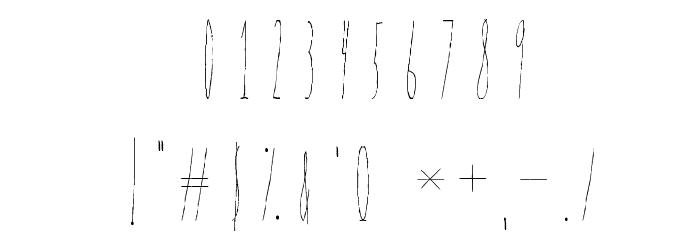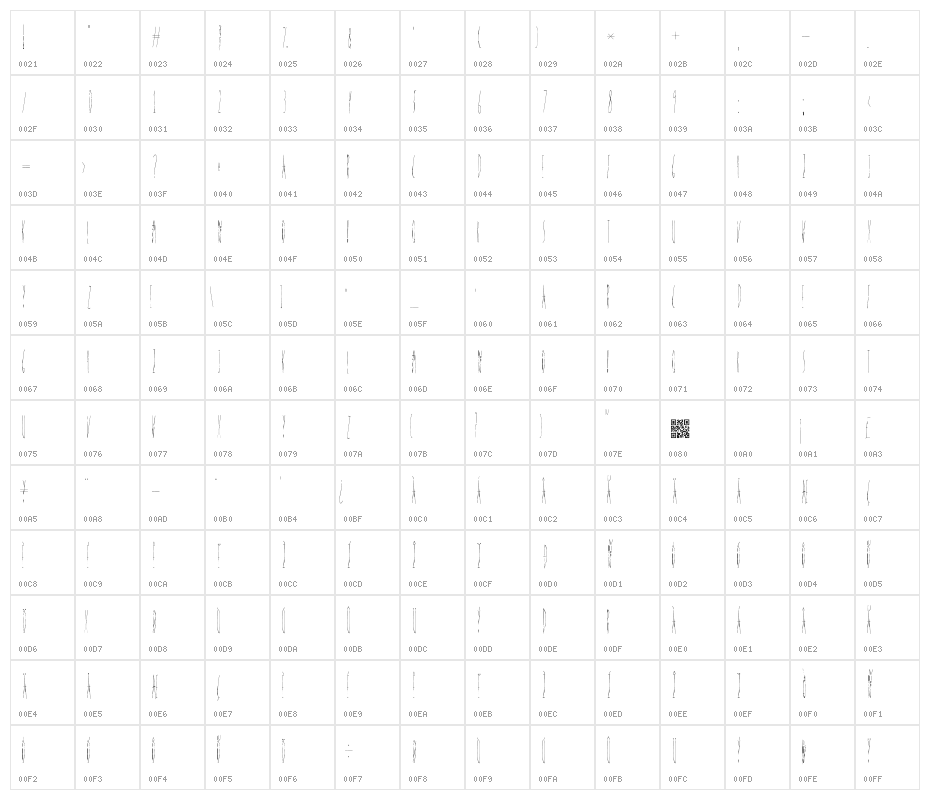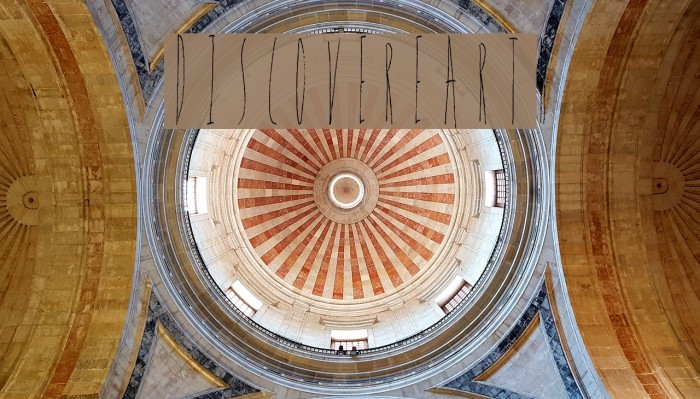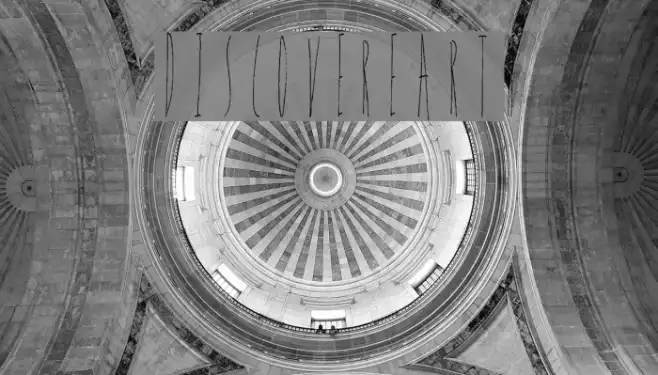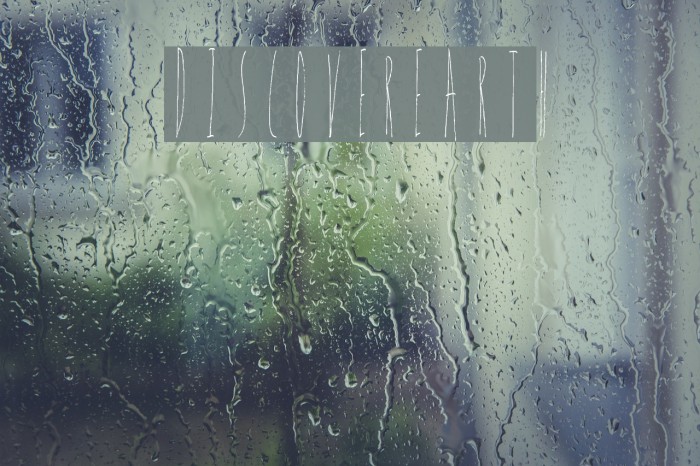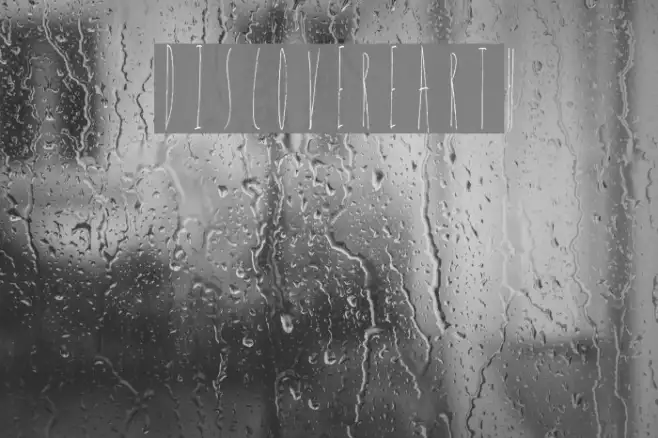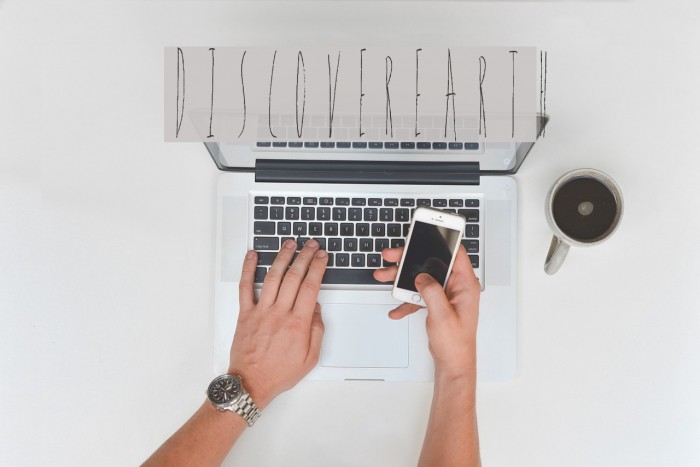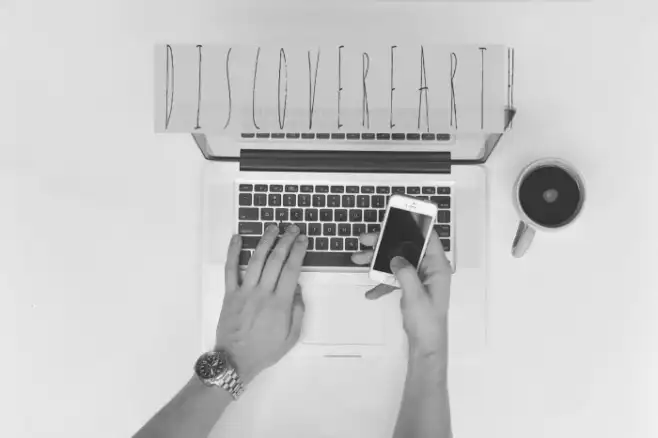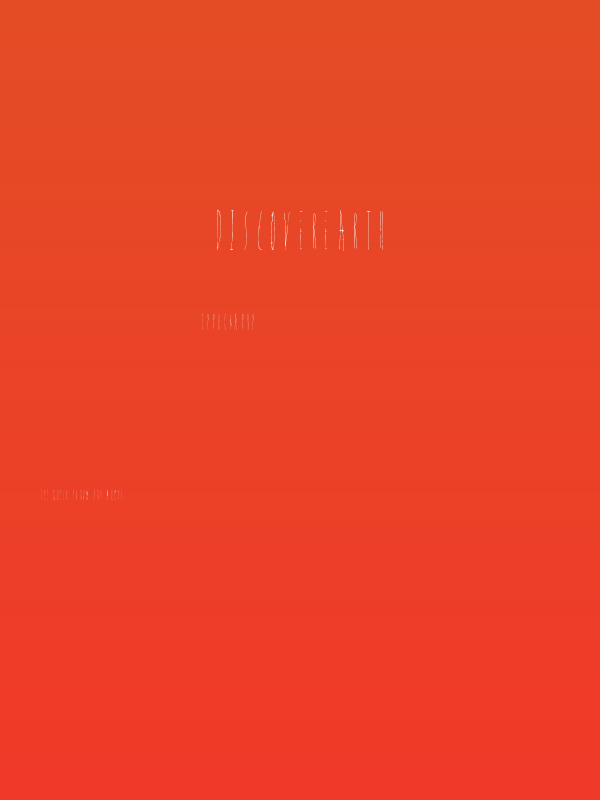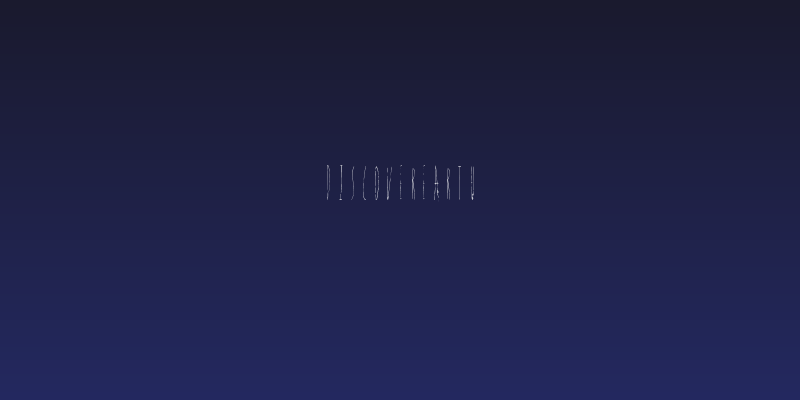
DiscoverEarth Font
DiscoverEarth Description
This font features a unique and artistic design, characterized by its tall, narrow letterforms and irregular, sketch-like strokes. Each character appears hand-drawn, with varying line thickness that gives it a dynamic and textured appearance. The uppercase and lowercase letters maintain a consistent height, contributing to a cohesive look, while the numbers and special characters follow the same stylistic approach. The overall effect is both modern and slightly whimsical, making it stand out in any design context.
| Overall Style | Artistic, Modern |
| Proposed Projects | Ideal for creative projects such as art posters, album covers, or branding for artistic ventures. It can also be used in editorial design to add a unique flair to headlines or pull quotes. |